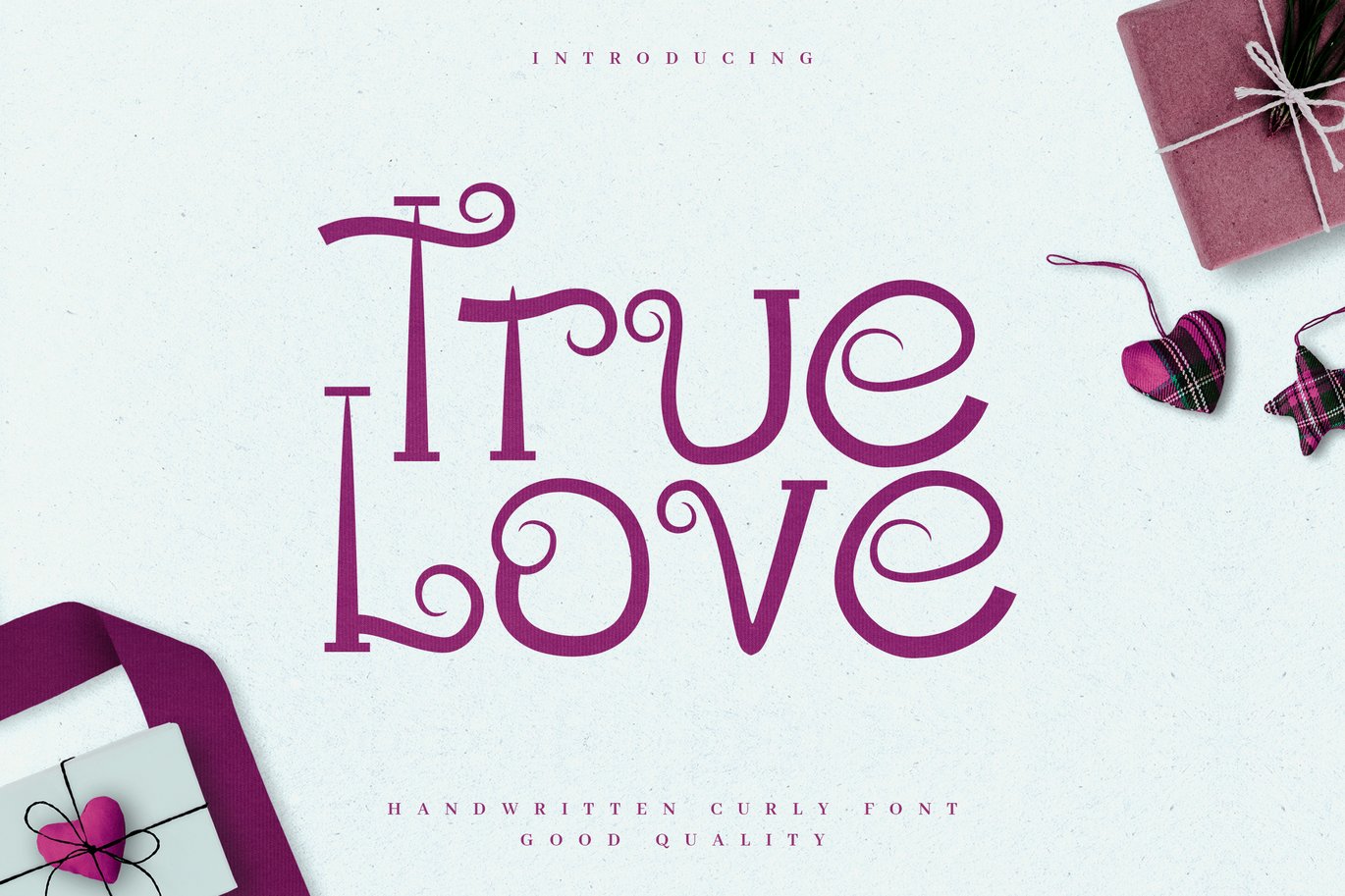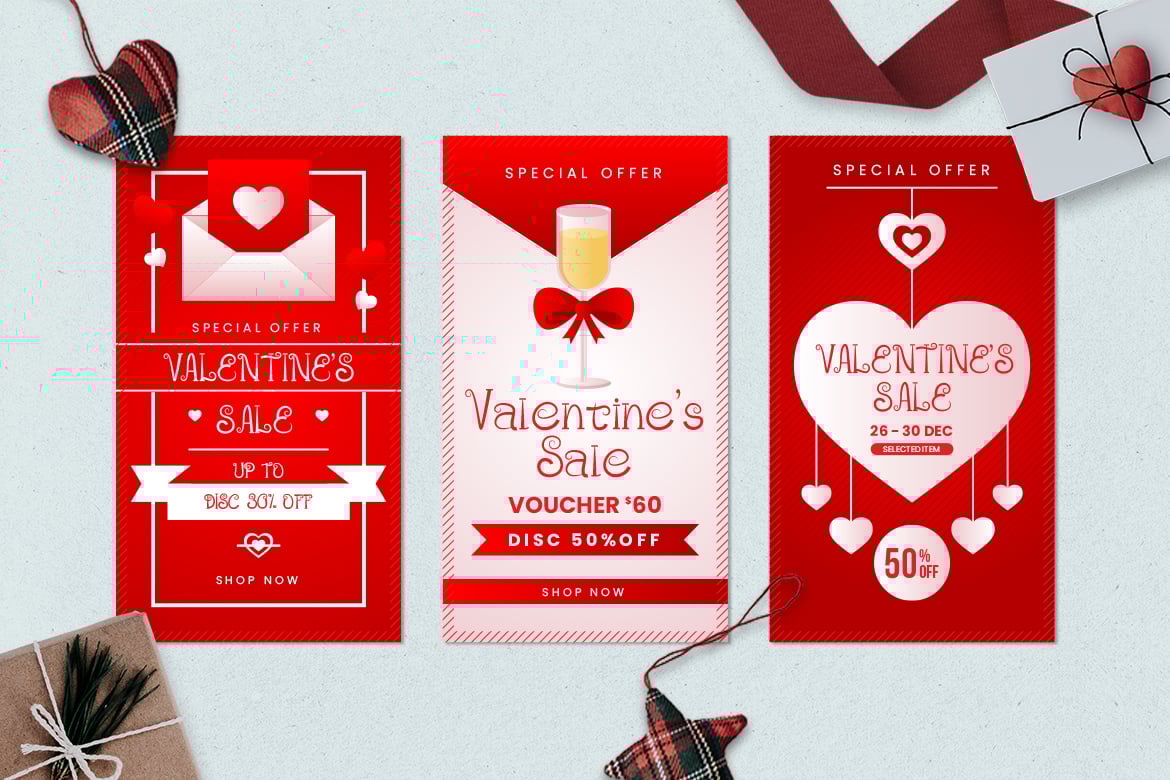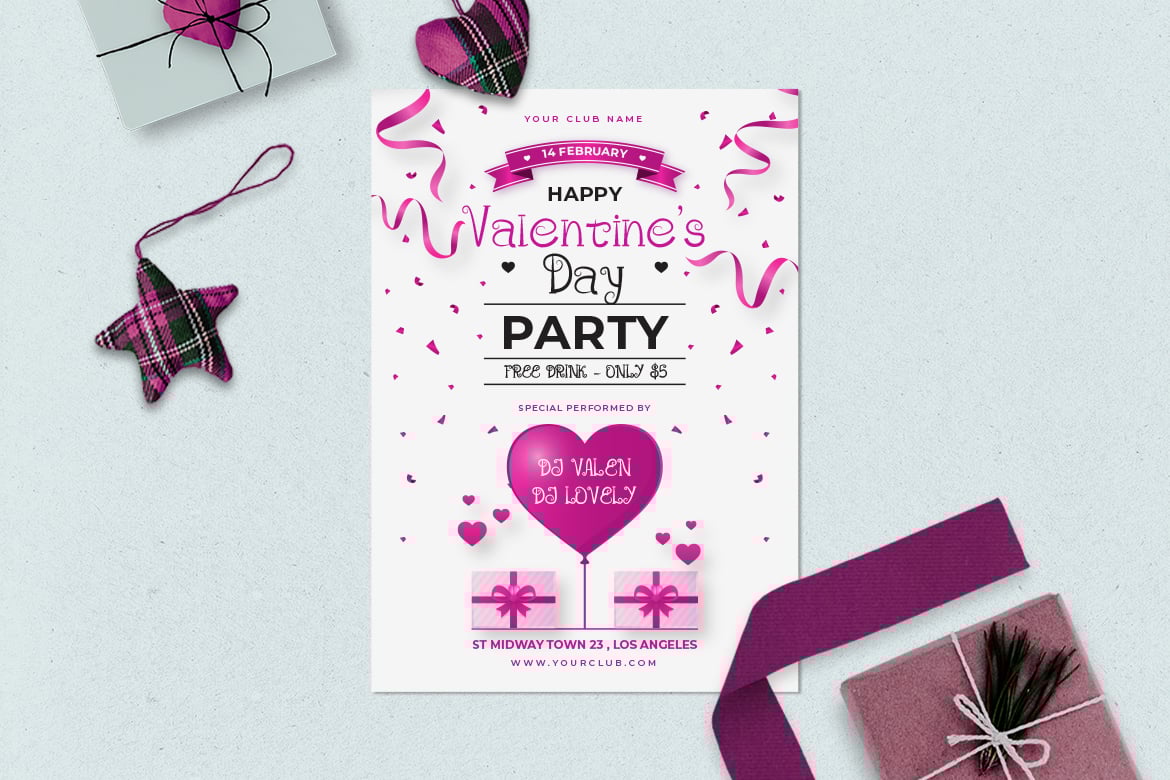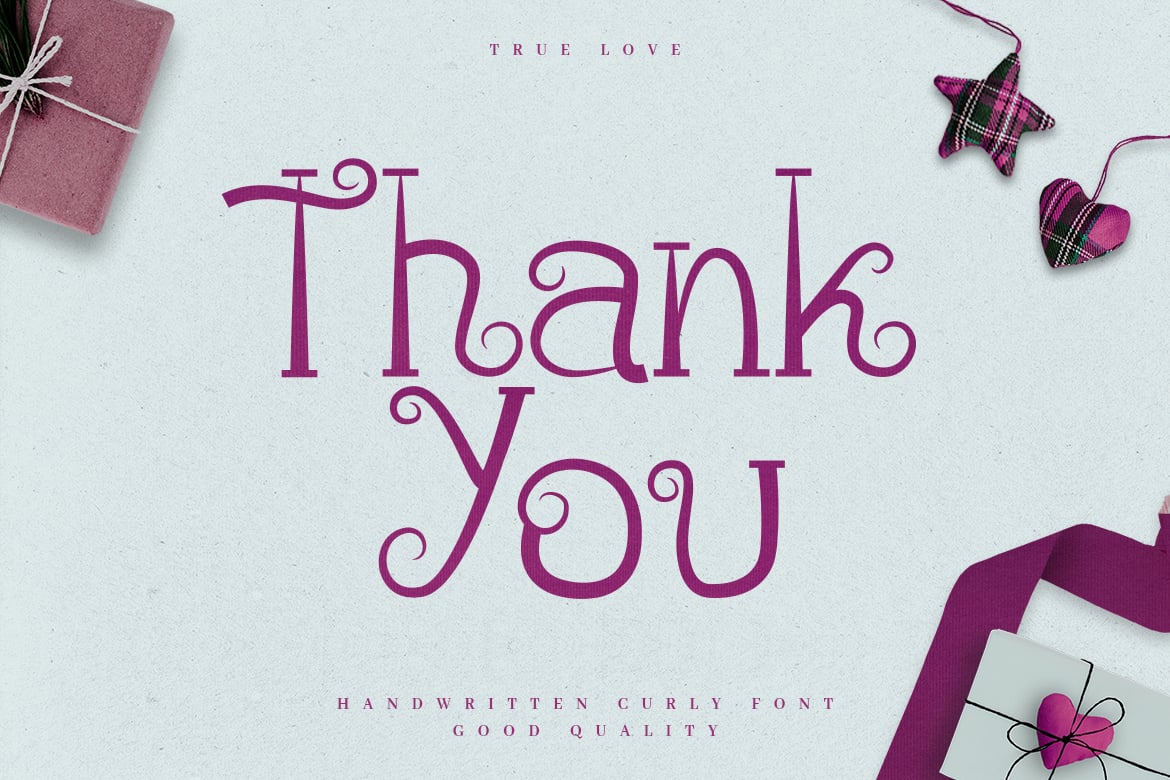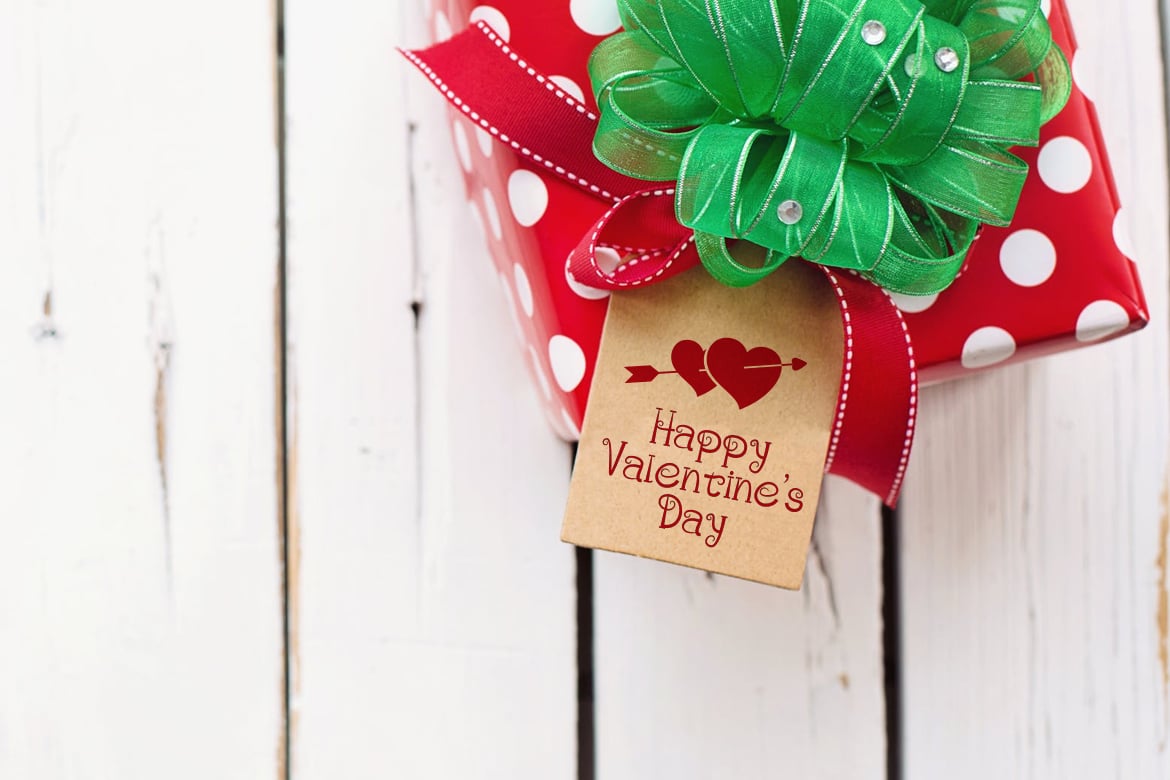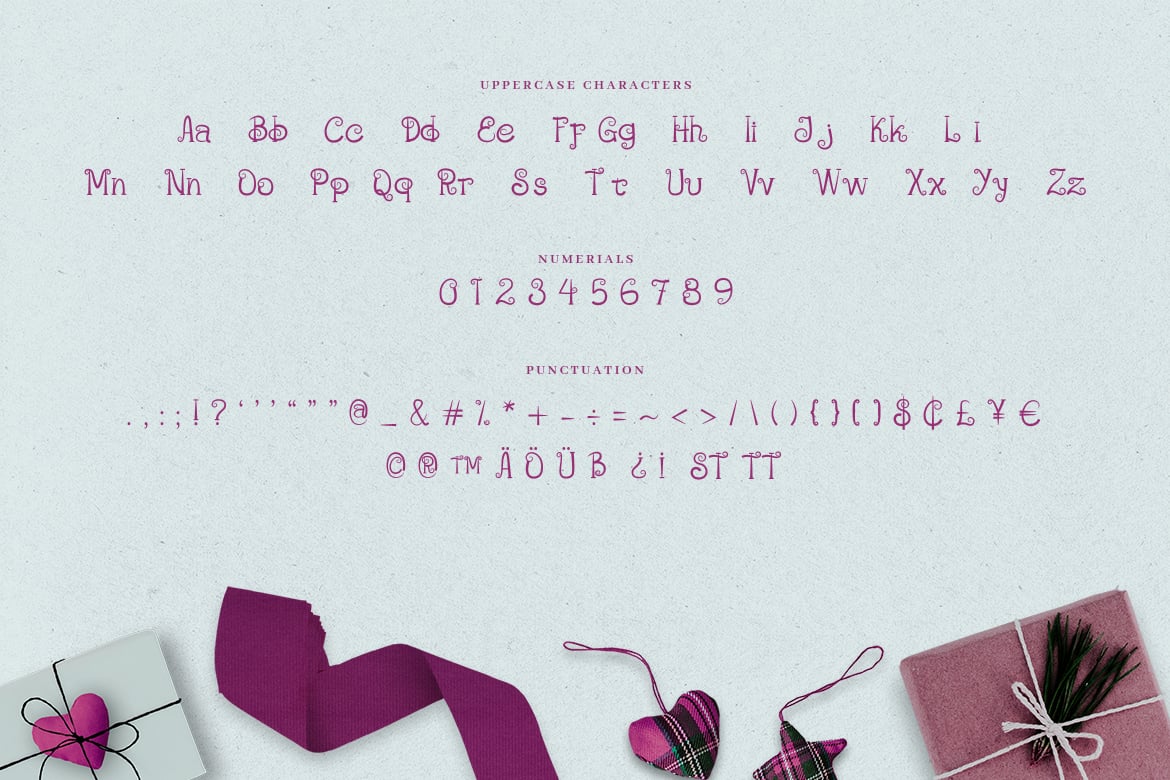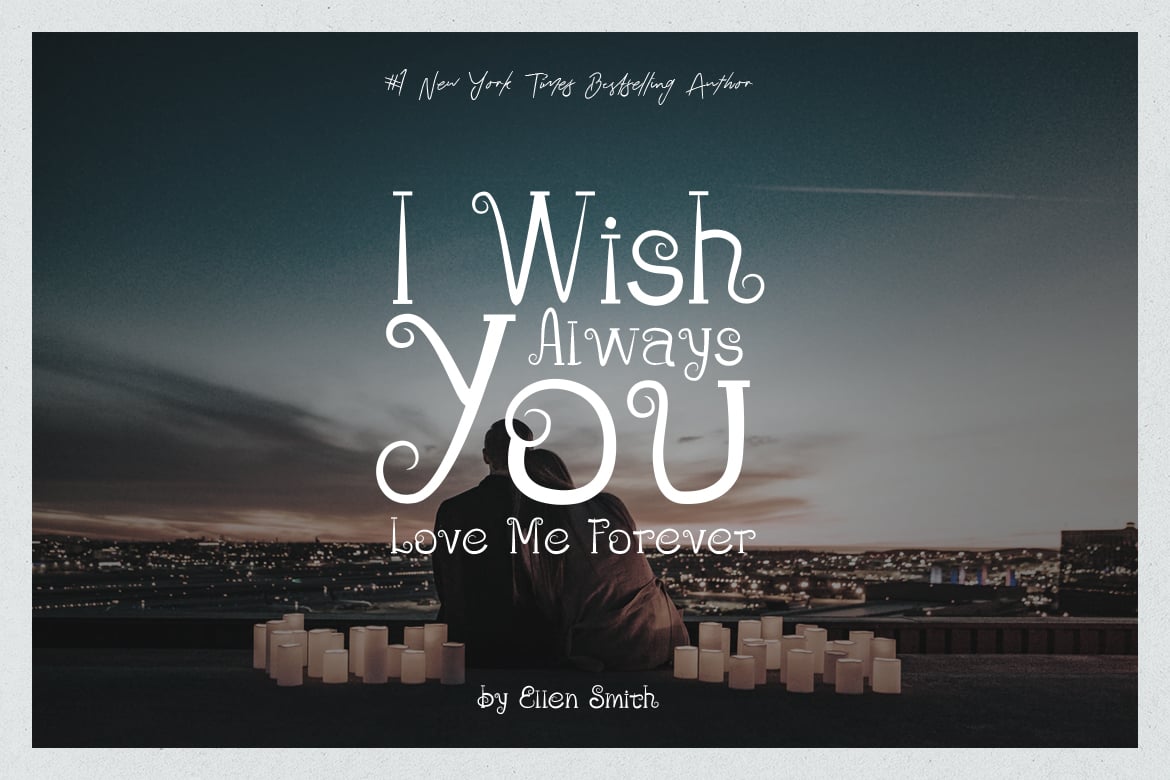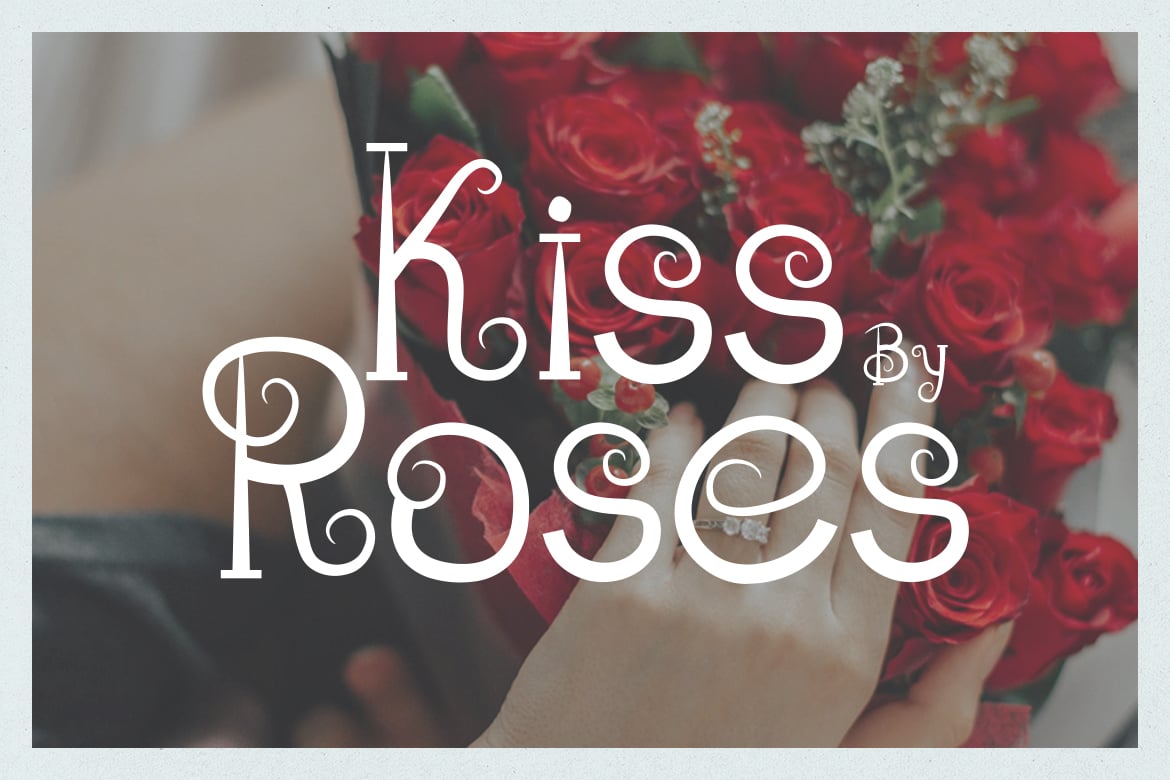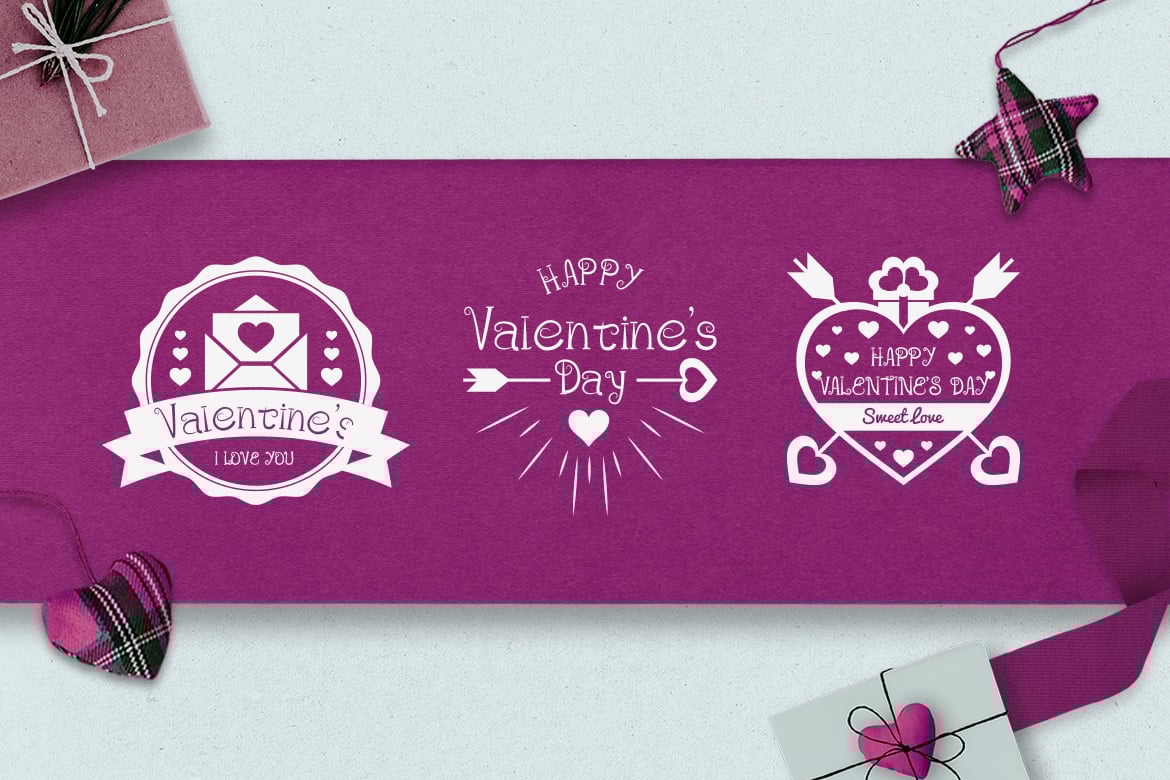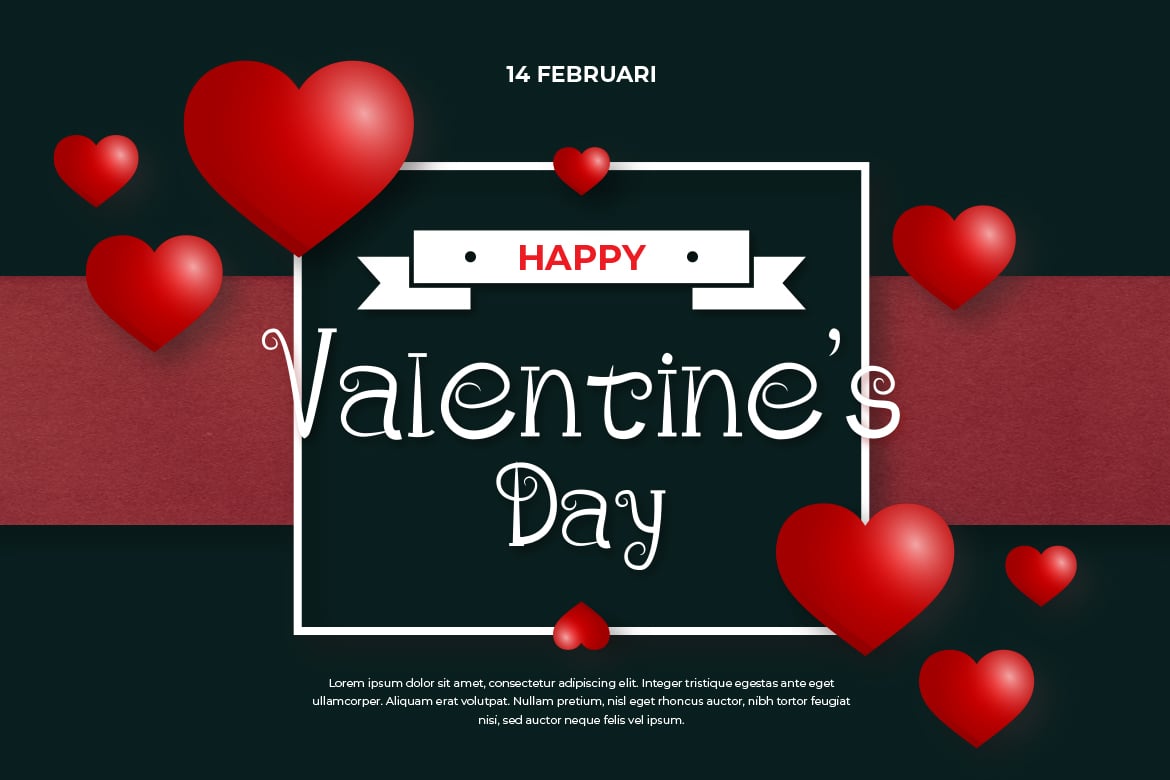
True Love – Curly Valentine Font
Are you looking for an romantic font for valentine? We can help! Try to download our True Love Curly font. The font is suitable to use for all all purpose. Try to use it on Wedding invitation, greeting card, poster, quotes, postcard, photography, branding, editorial, valentine and signature to see the best of it π